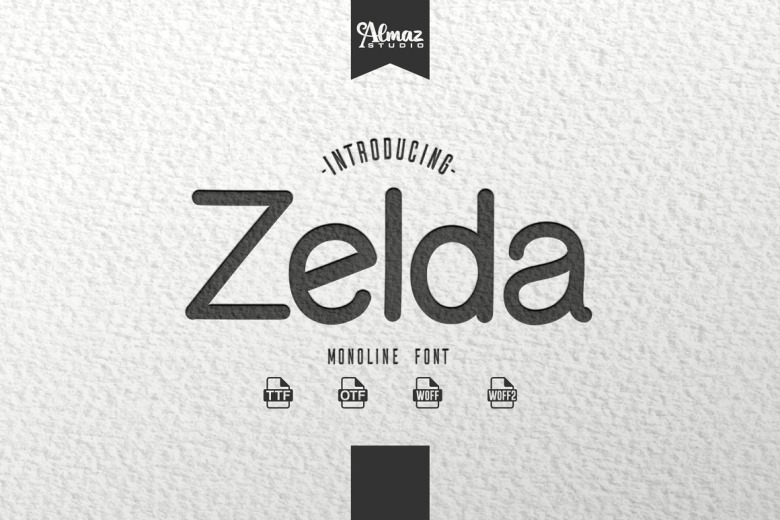
Zelda Font
Zelda is a pretty unique sans serif that combines perfect legibility with a clean and modernist lettering style. The font is also available in regular, italic, bold italic and bold versions. This is a professional version made from scanning/reporting complicated original hand scripts produced in numerous personal computer-generated-brushes adopted by post-edits.
Zelda Sans Serif Font